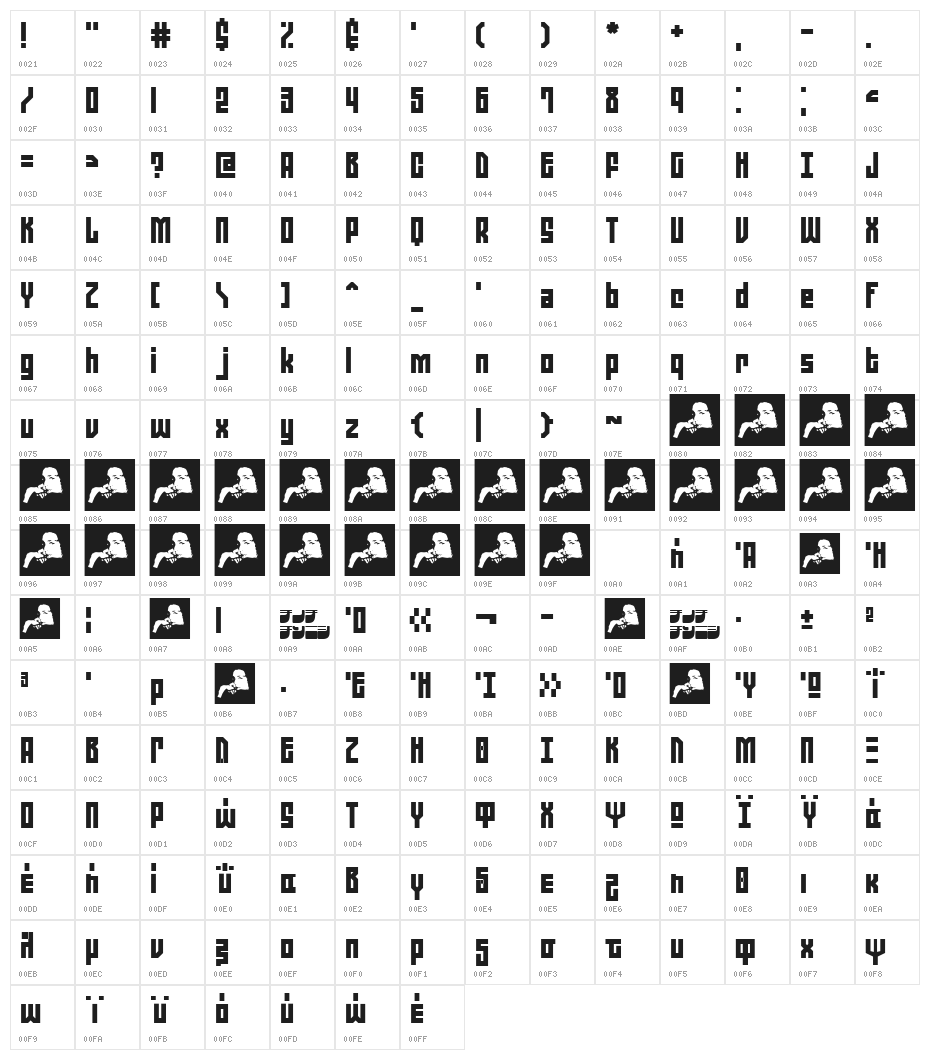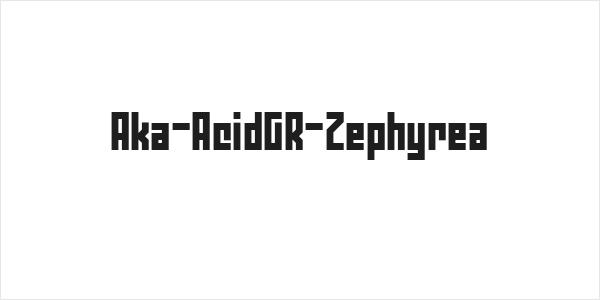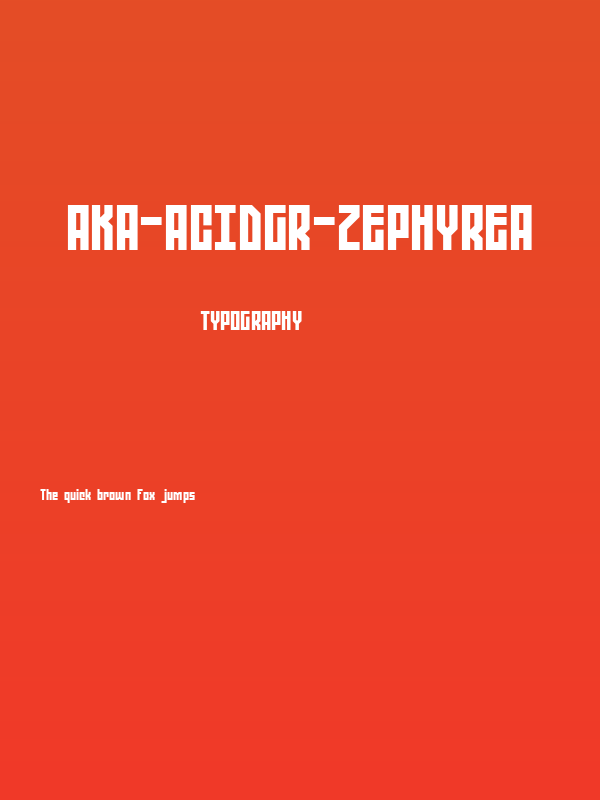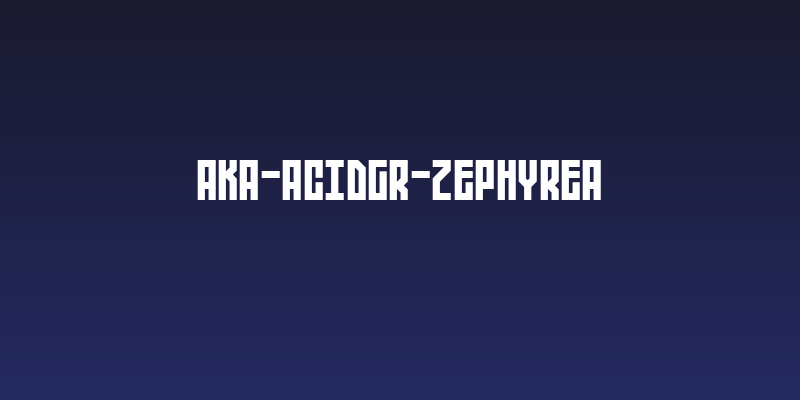
Aka-AcidGR-Zephyrea Font
Aka-AcidGR-Zephyrea Description
This font features a bold and geometric style with a strong presence. The characters are constructed with thick, block-like strokes, giving them a robust and impactful appearance. The uppercase letters maintain a uniform height, while the lowercase letters are slightly shorter, preserving readability. The numbers and special characters follow the same bold and angular design, ensuring consistency across all glyphs. The font's design is reminiscent of industrial or futuristic themes, making it suitable for projects that require a modern and edgy aesthetic.
| Proposed Projects | Ideal for branding, posters, video game graphics, and any project needing a modern, bold look. |